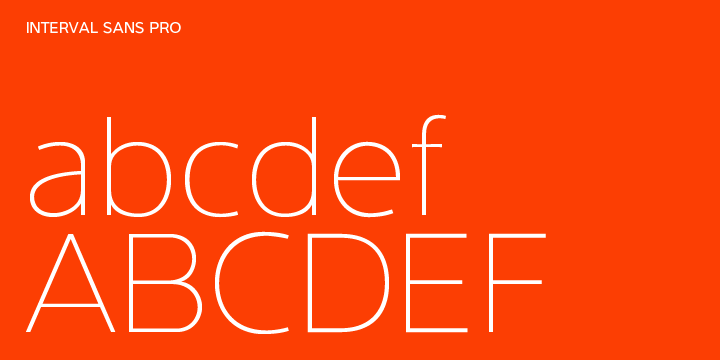
Created in 2009, this font family is a practical choice when you need a contemporary sans serif for text typography, headlines, signage or brands creation. The strong familial relationships between all the styles and weights make it a serviceable choice for large graphic design projects that require versatility with consistency.